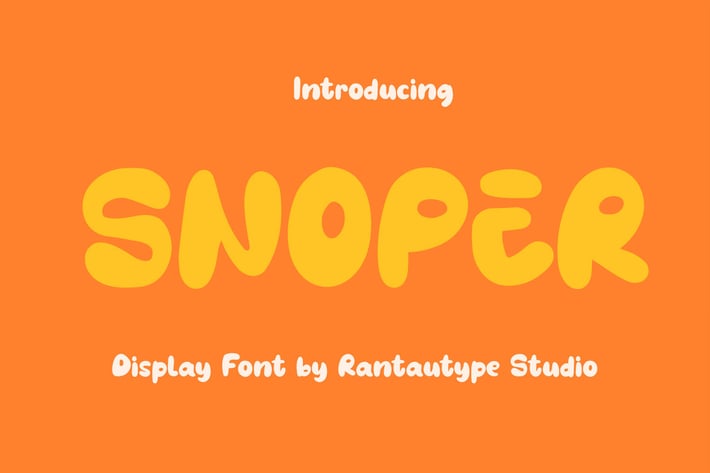
Snoper Display Font
Snoper is display handwriten font with retro and playful vibes. Come with alternate, ligature and support multilangual character.
Snoper is perfectly choice for any creative endeavor, such as logos, title, watermark on photography, cover, branding, display and magazine, wedding event, corporate brand, quotes, album cover, business card, business project and many other design project with playful taste.
Ligature and alternate